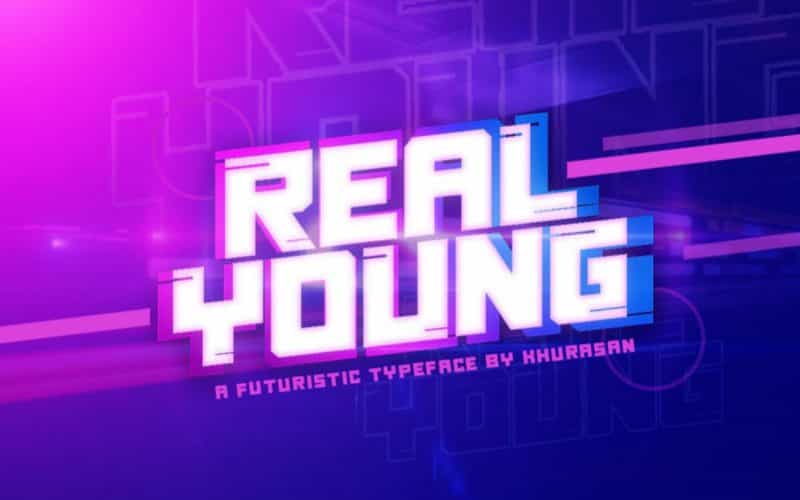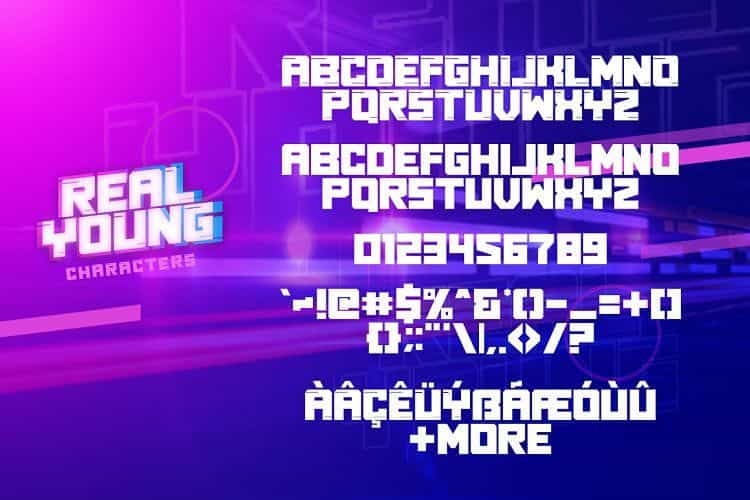
Discover Real Young Typeface, part of the Sans Serif collection—a versatile and unique font perfect for adding a personal touch to your projects. Download it for free and enjoy crafting designs with style, from invitations to social media posts. This font is available exclusively for personal use, giving you the freedom to create without limits. Unlock your creativity with Real Young Typeface today!
Introducing, The real young font is a sans-serif bold and italic type. Real young font it’s perfect for, poster, logo, magazine, cover, banner, tshirt and headers, or even large-scale artwork. Real young font support multi language.